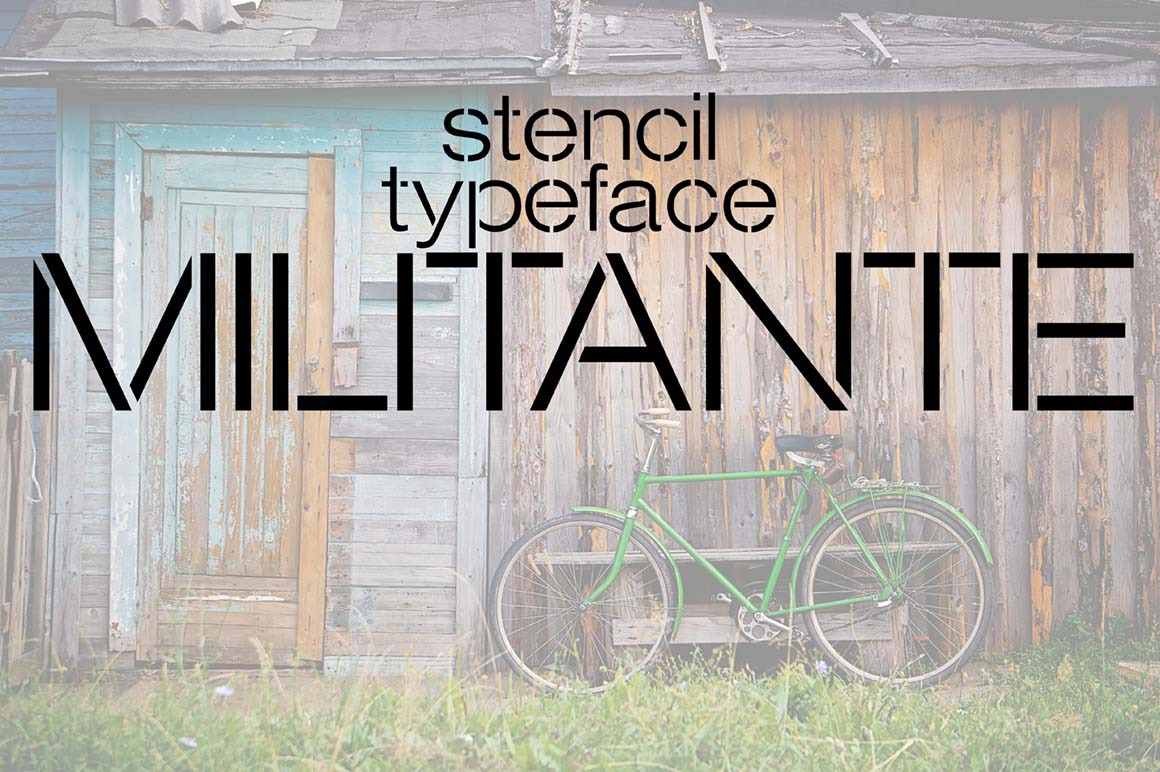
Militante Stencil Font
Militante is a stencil display font. Strong and delicate it makes a statement when used. It has a subtle roughness that shows better at large point sizes.